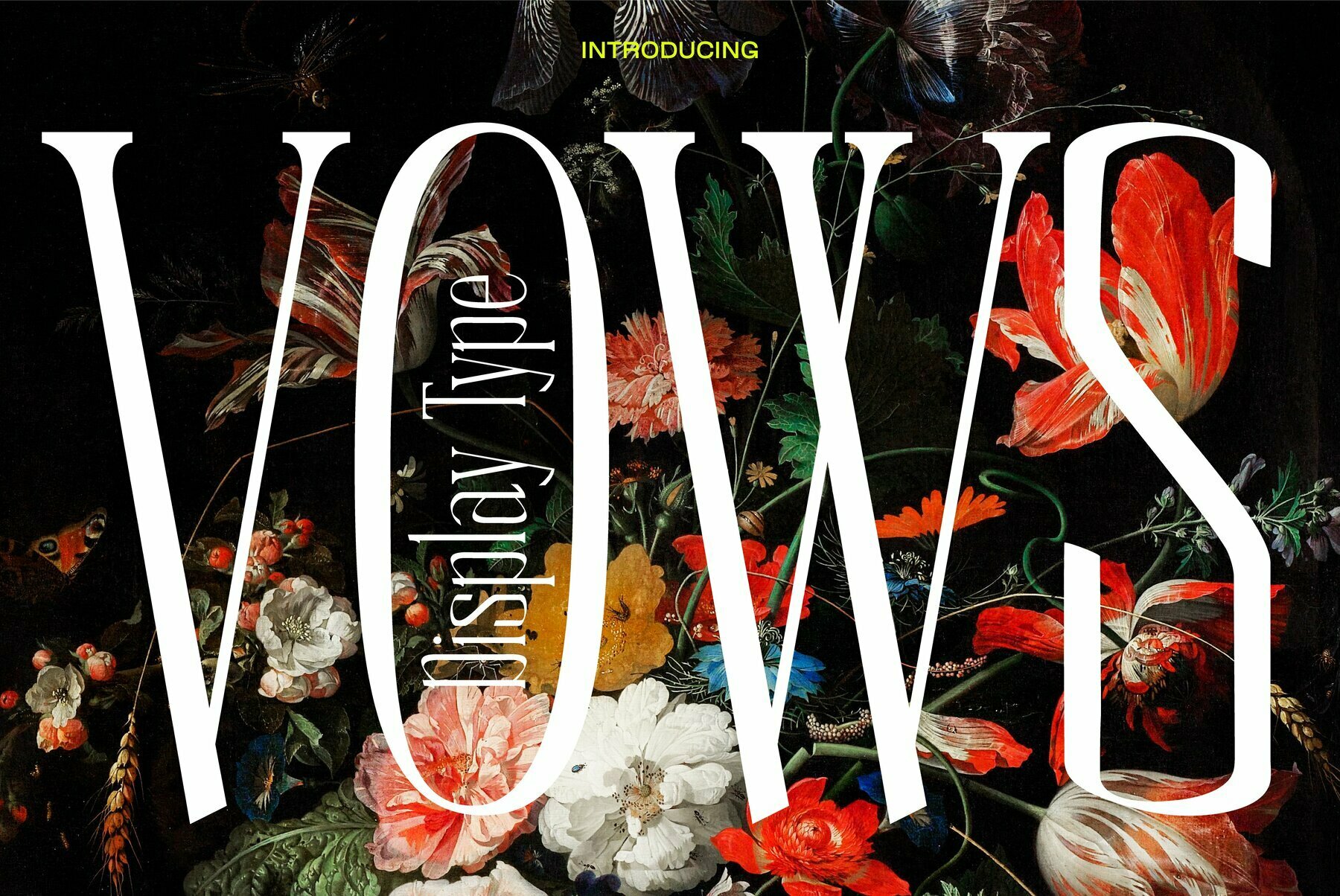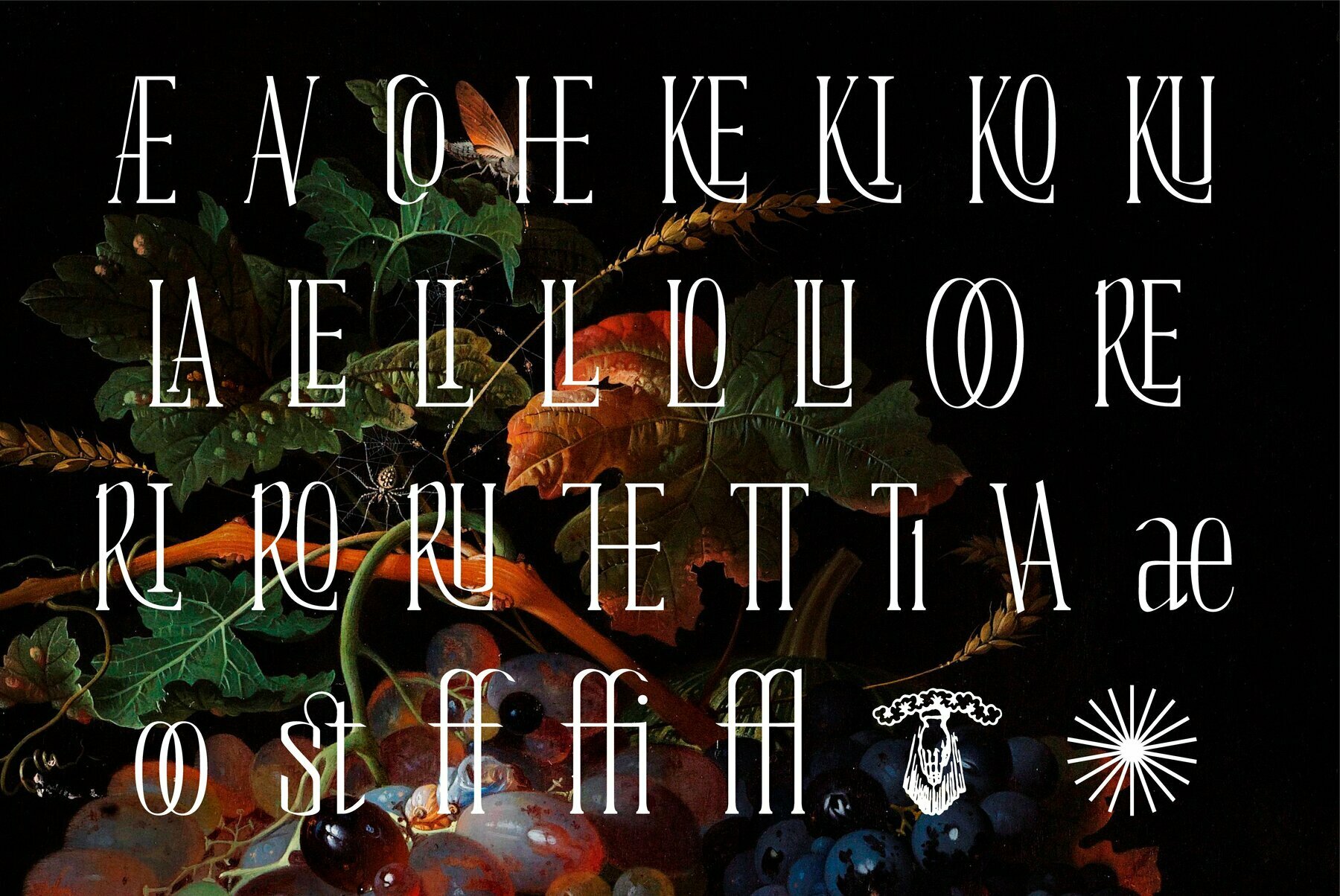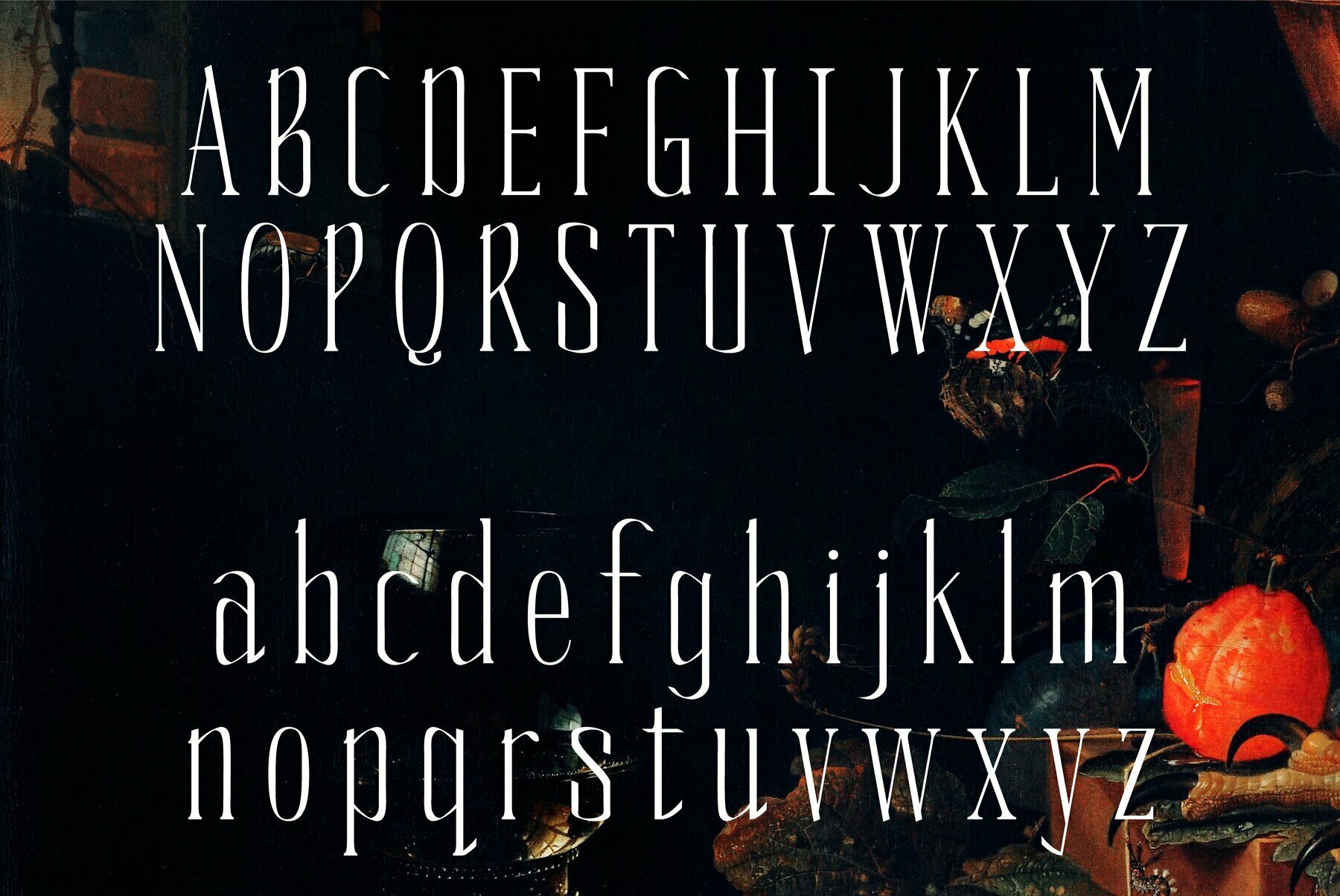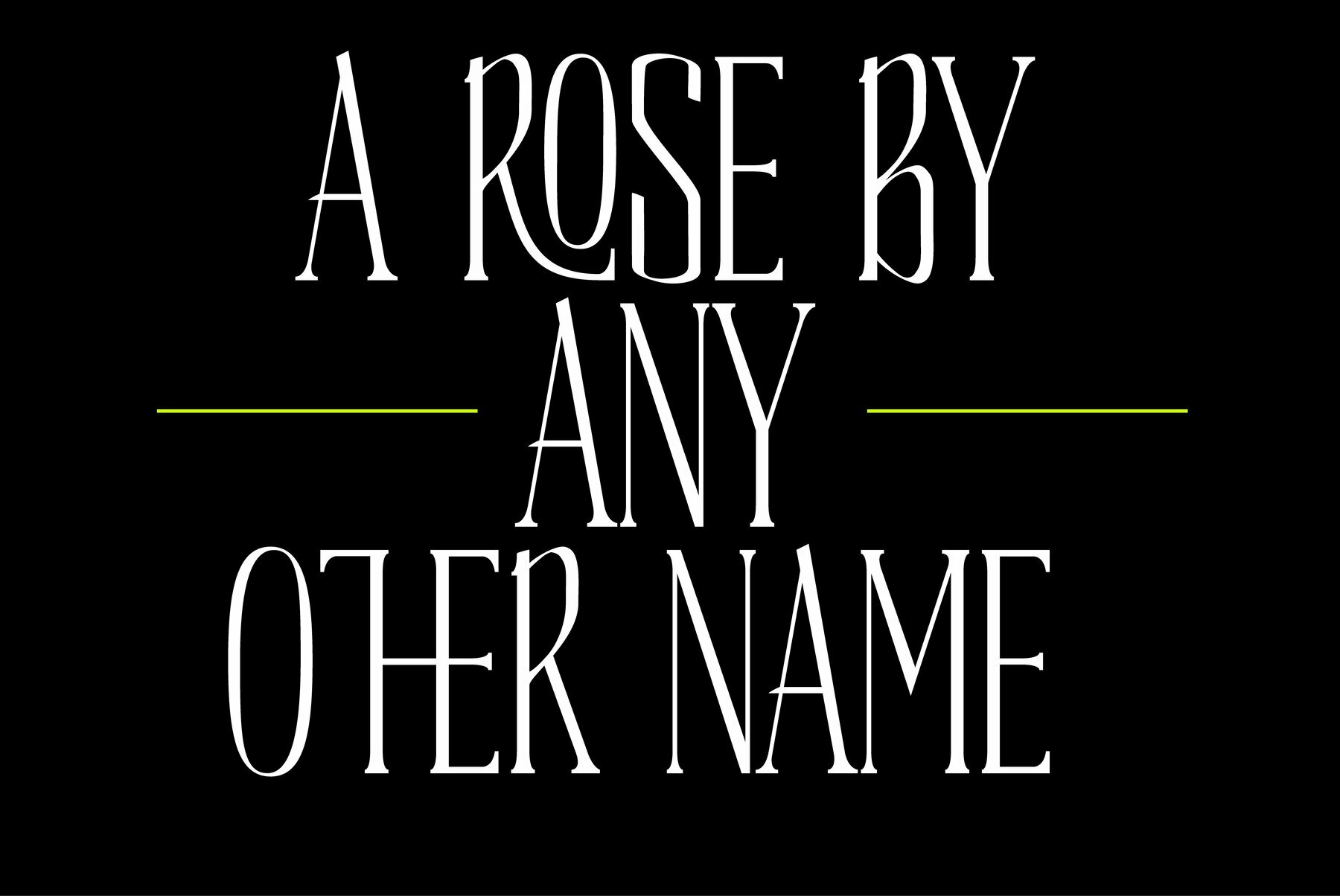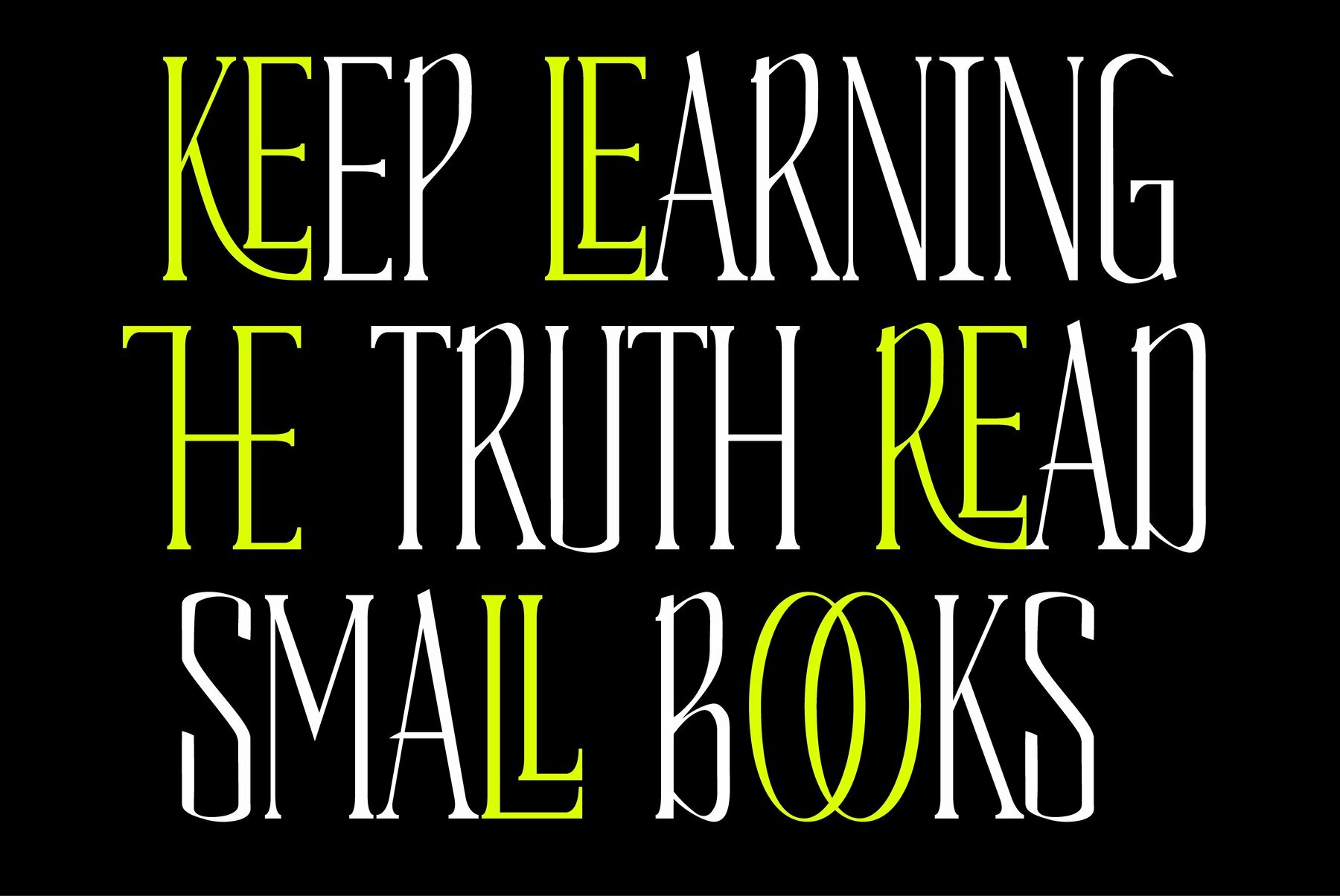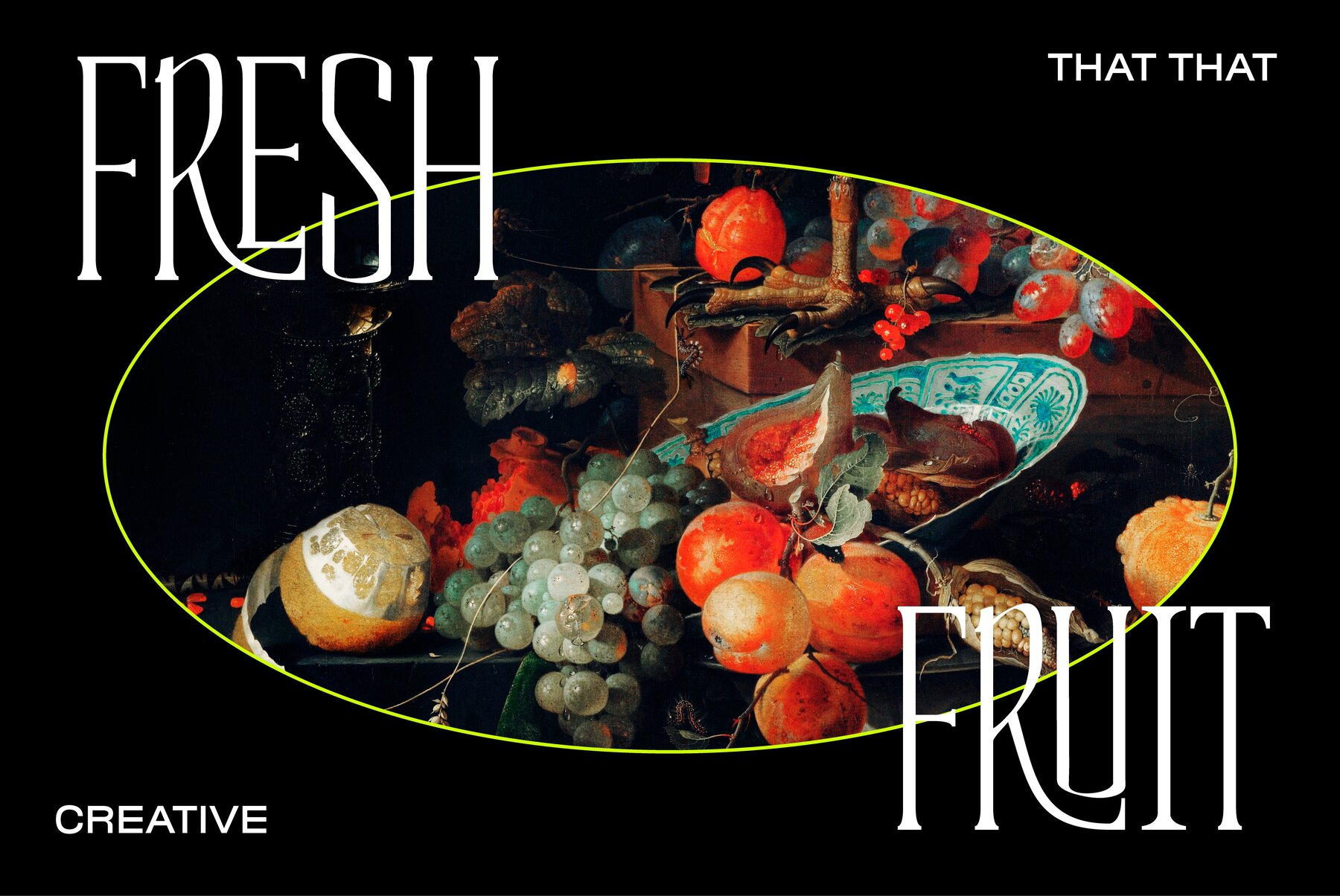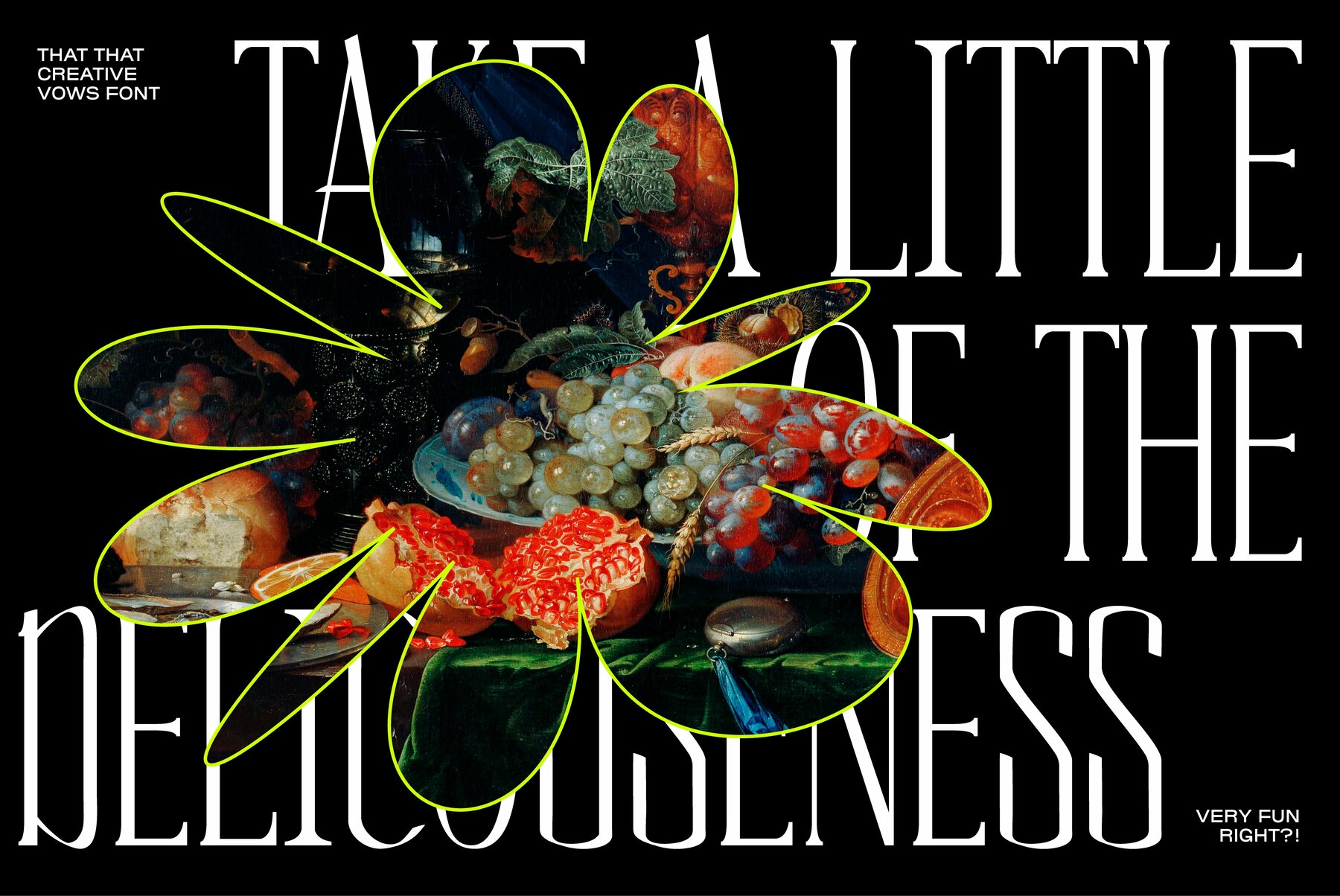
VOWS Font
Vows Regular
Vows is an elegant condensed serif font with a distinctive presence that enhances the sophistication of any design project. Its tall and slender form exudes a refined charm, making it a perfect choice for those seeking understated prominence. Ideal for use in logos, magazines, fashion layouts, and wedding invitations, Vows subtly commands attention without overwhelming the aesthetic.Vows: An Elegant Condensed Serif